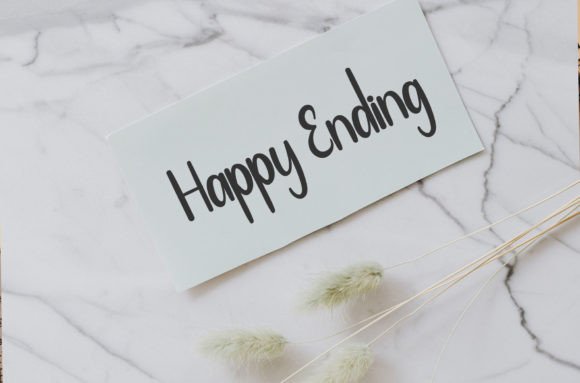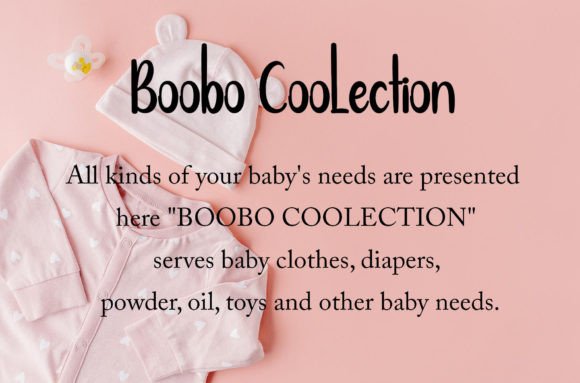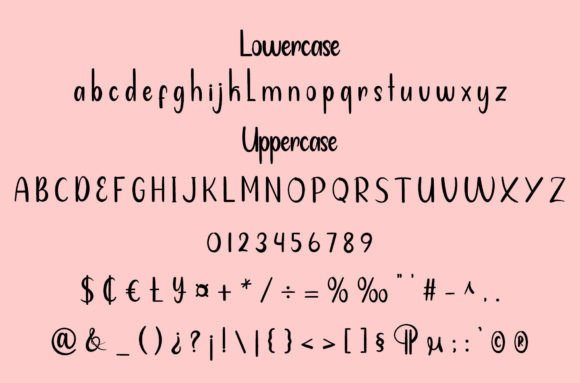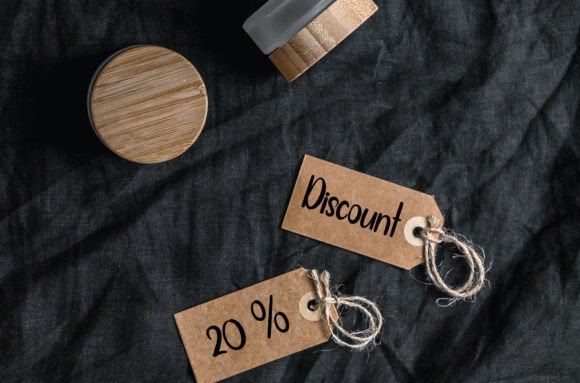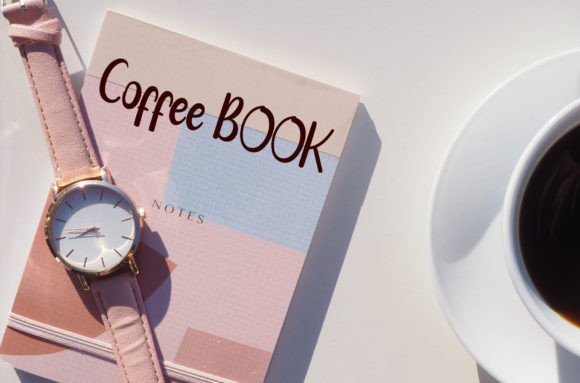
Milk and Cookies Font
“Milk and Cookies” is a sweet and cute handwritten font known for its delightful charm. Its characteristics include not overly thick or dense lines, making it easy to read, and conservative curves that aren’t too blunt. This balanced mix of fun and professionalism makes “Milk and Cookies” a versatile choice for a wide range of design projects.
The font’s sweet and cute design adds a touch of playfulness and warmth to your creative work. Its readability and unique style make it suitable for projects that require a delightful and approachable appearance. “Milk and Cookies” can work well for various design applications, such as branding, logos, invitations, greeting cards, posters, and more.
In the world of design, fonts are pivotal for conveying personality, setting the mood, and capturing attention. “Milk and Cookies” excels in these aspects by offering a handwritten style that balances readability with a distinct visual appeal. Its aesthetics infuse your designs with a sense of creativity and approachability, making them engaging and memorable.
In summary, “Milk and Cookies” is more than just a font; it’s a sweet and cute design tool that can add a touch of playfulness and warmth to your projects. Its unique style and balanced design make it an ideal choice for designers seeking to create work that is both delightful and professional. Whether you’re an experienced designer or just beginning your creative journey, “Milk and Cookies” is the font that can help you create designs that are both endearing and engaging.